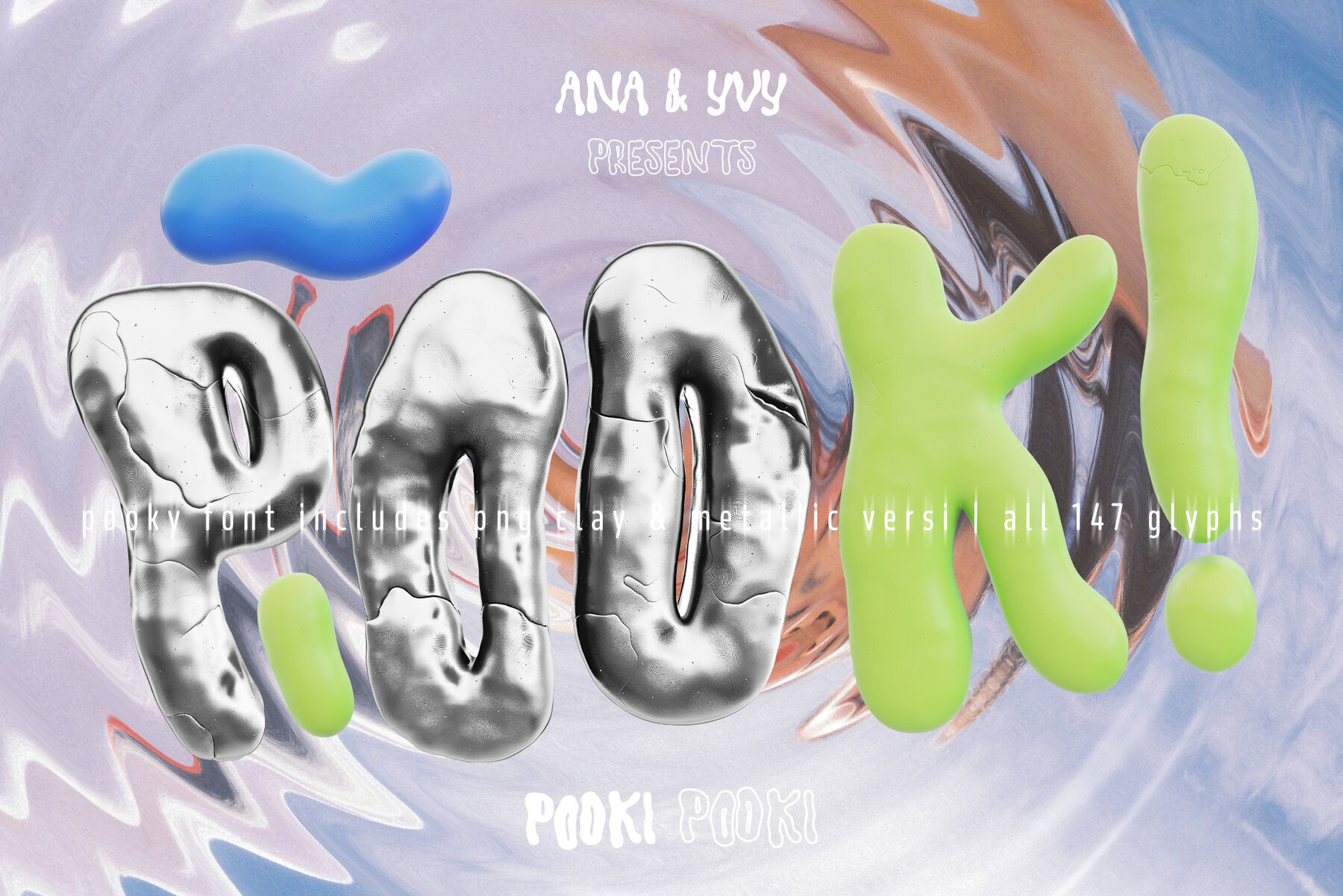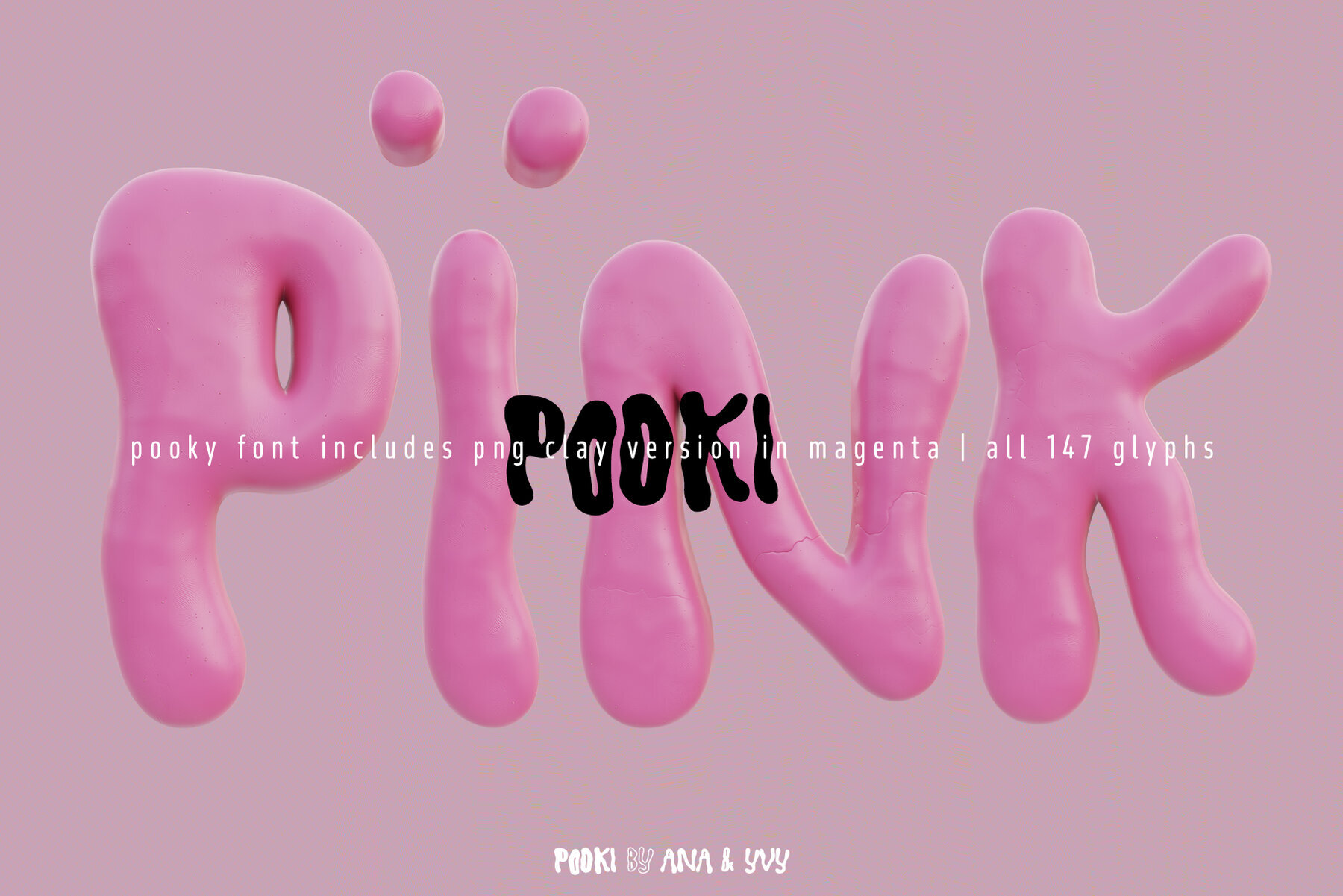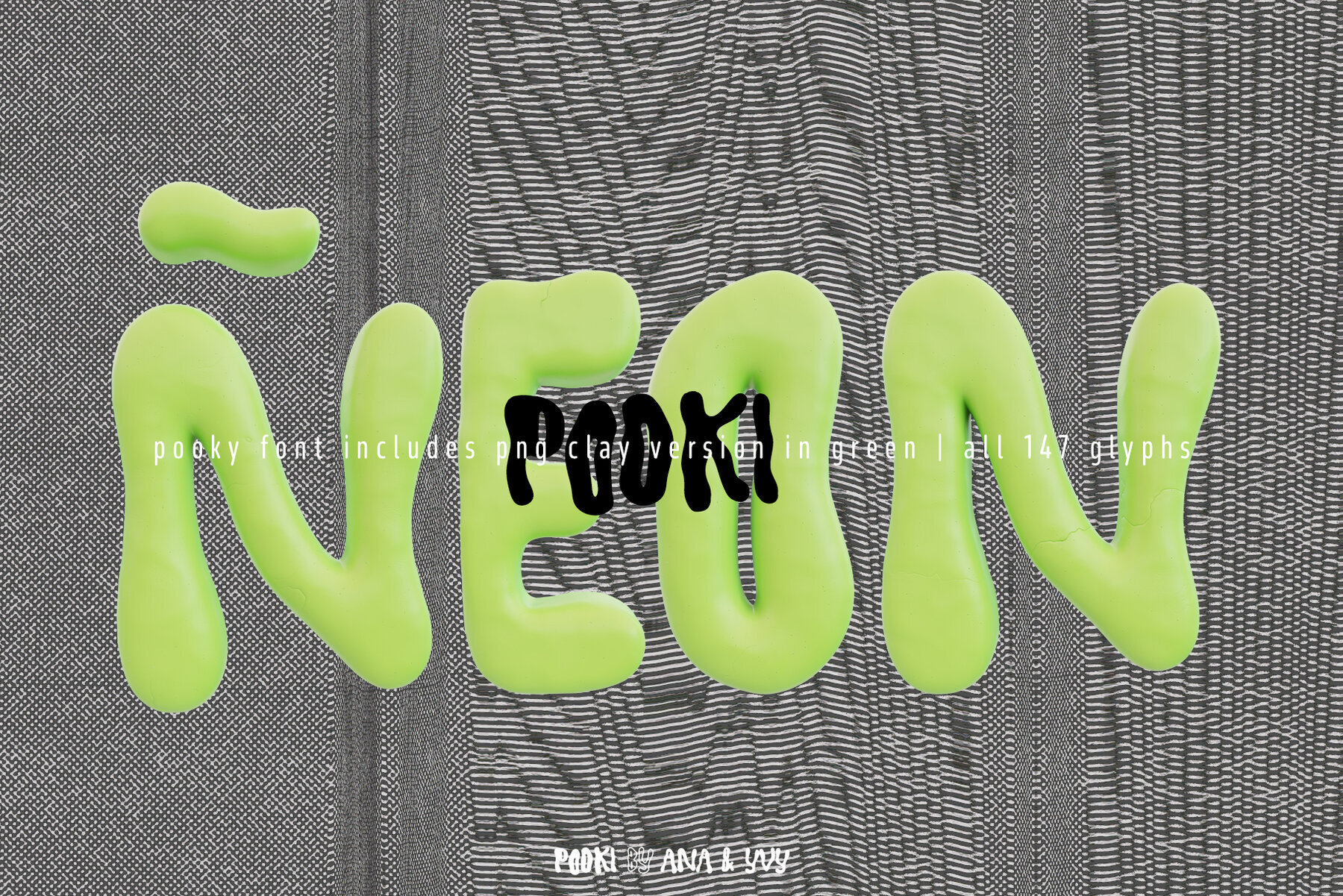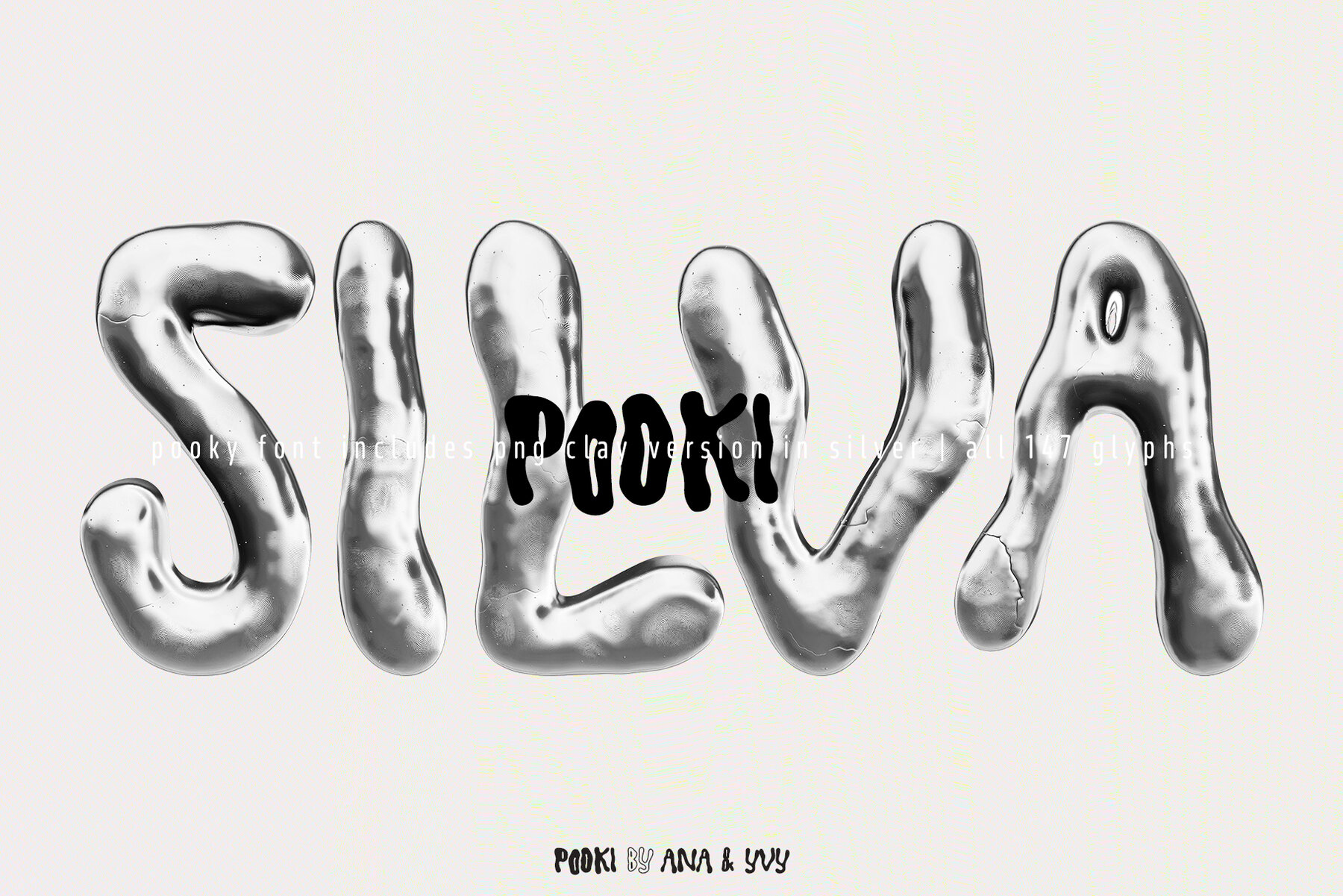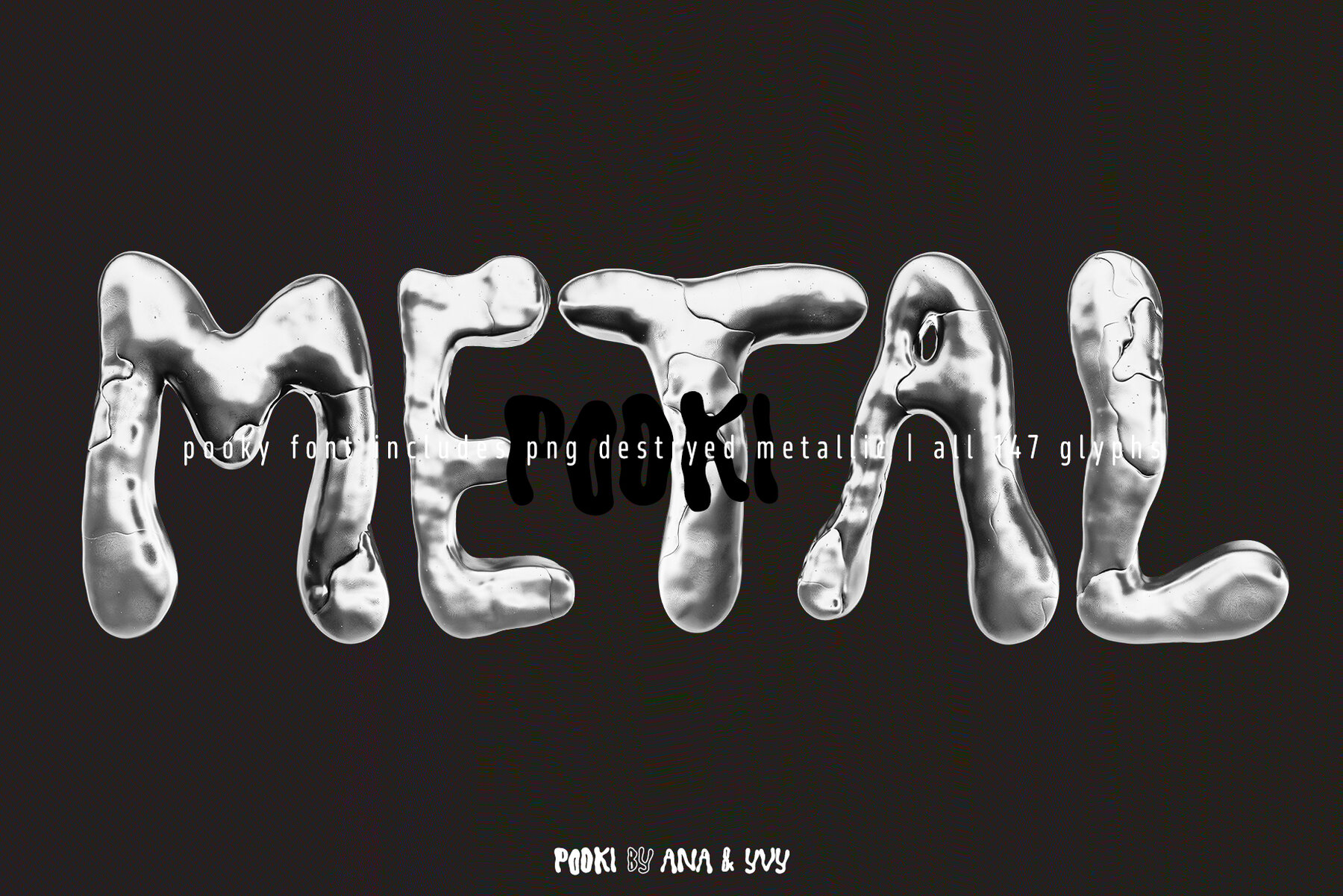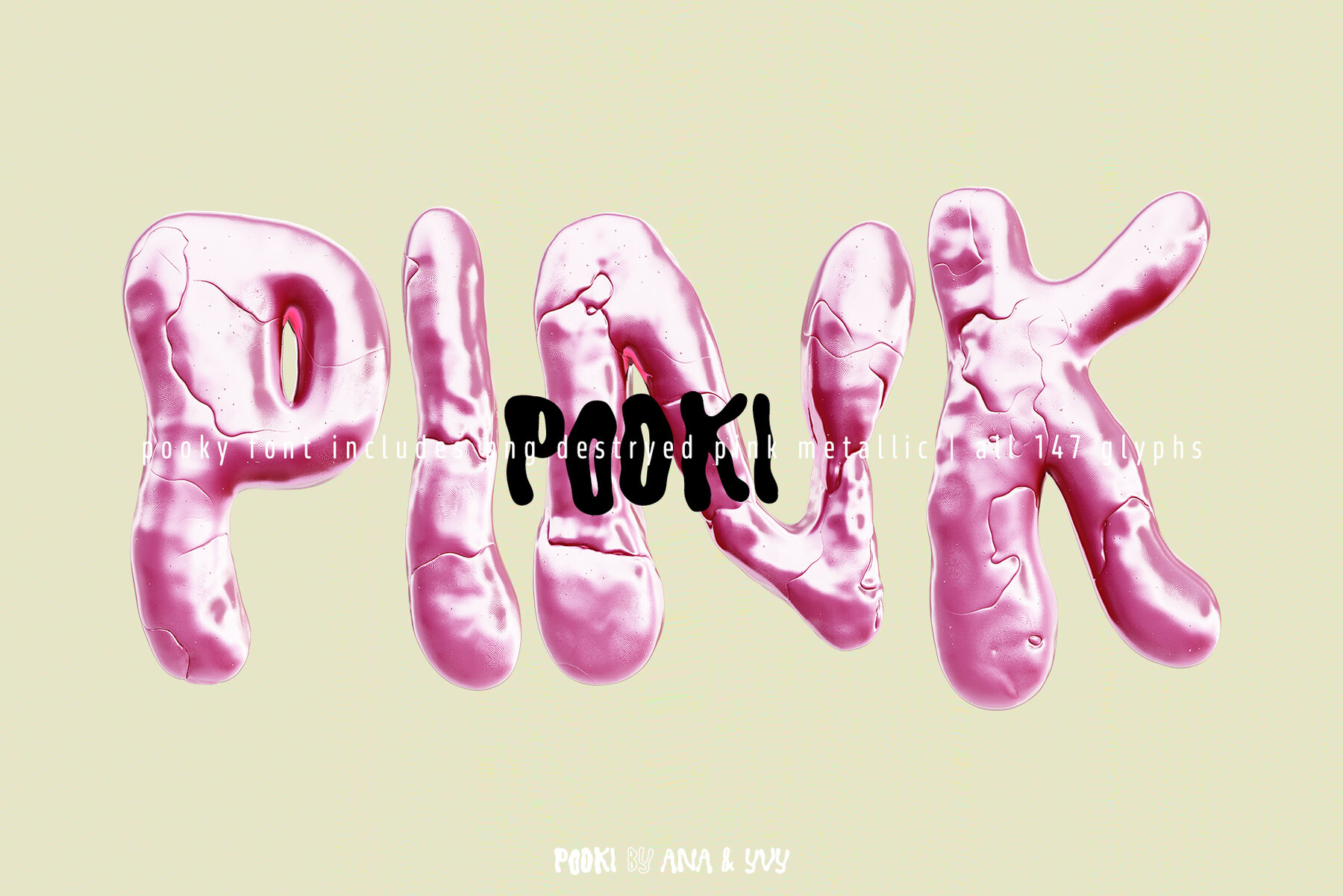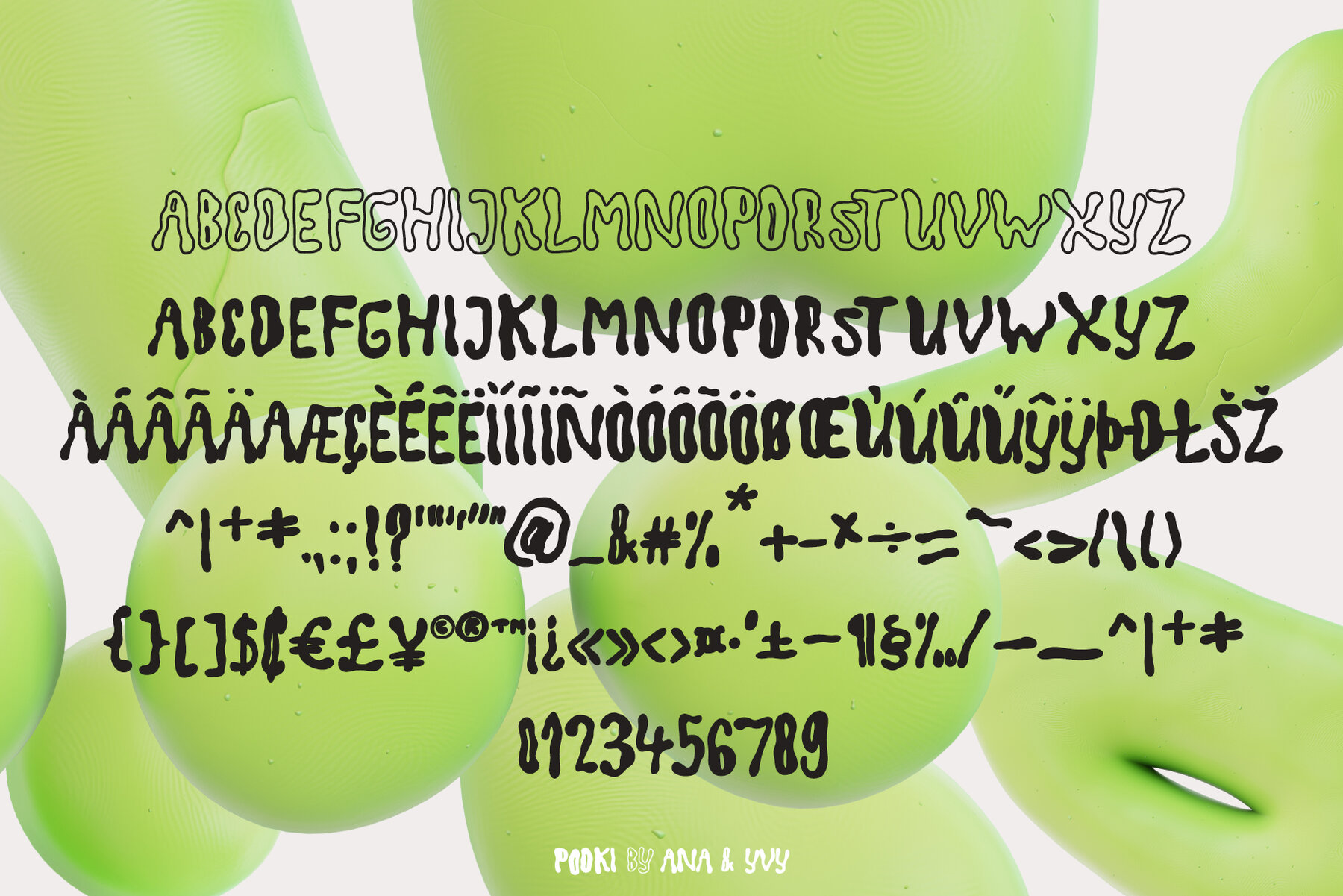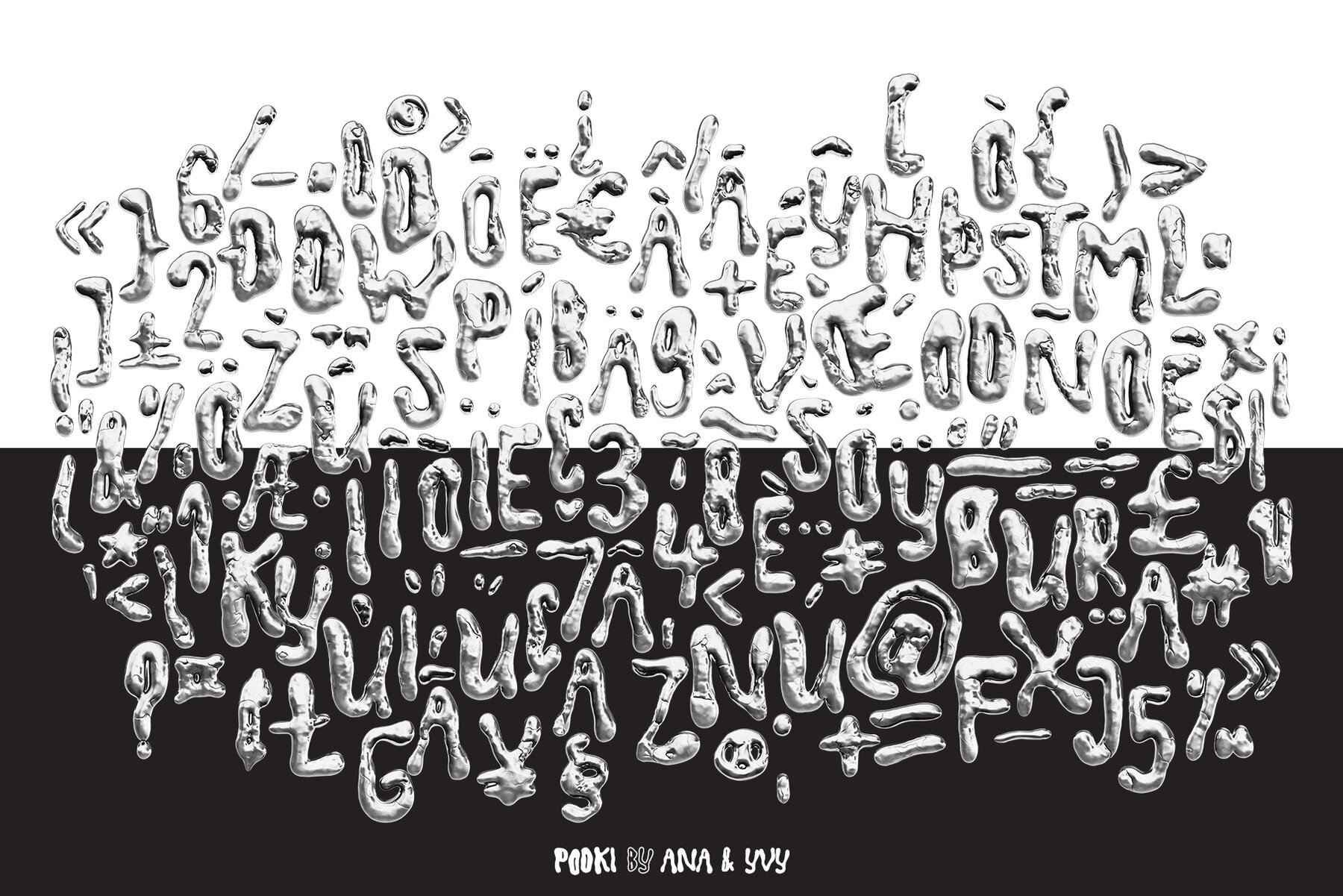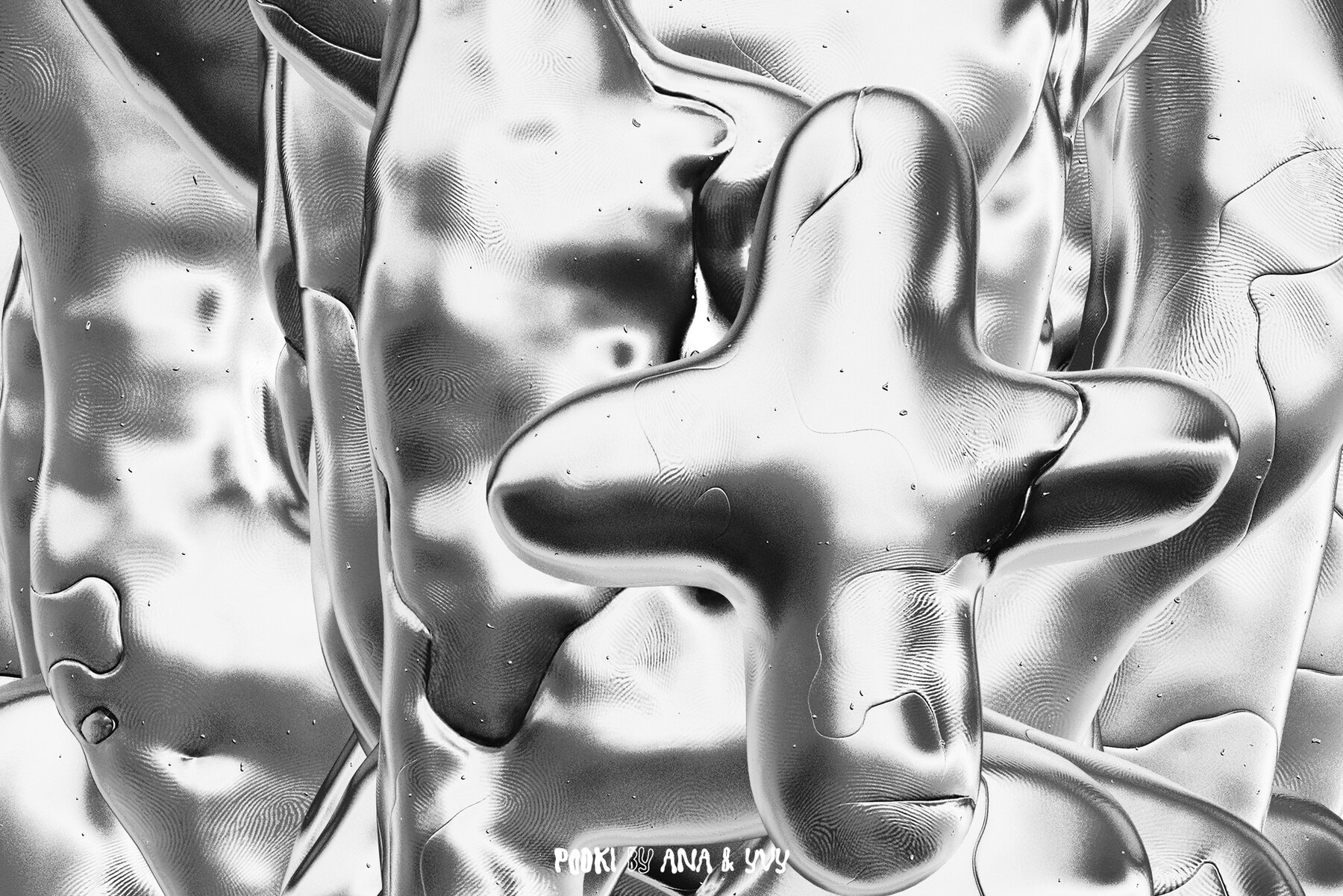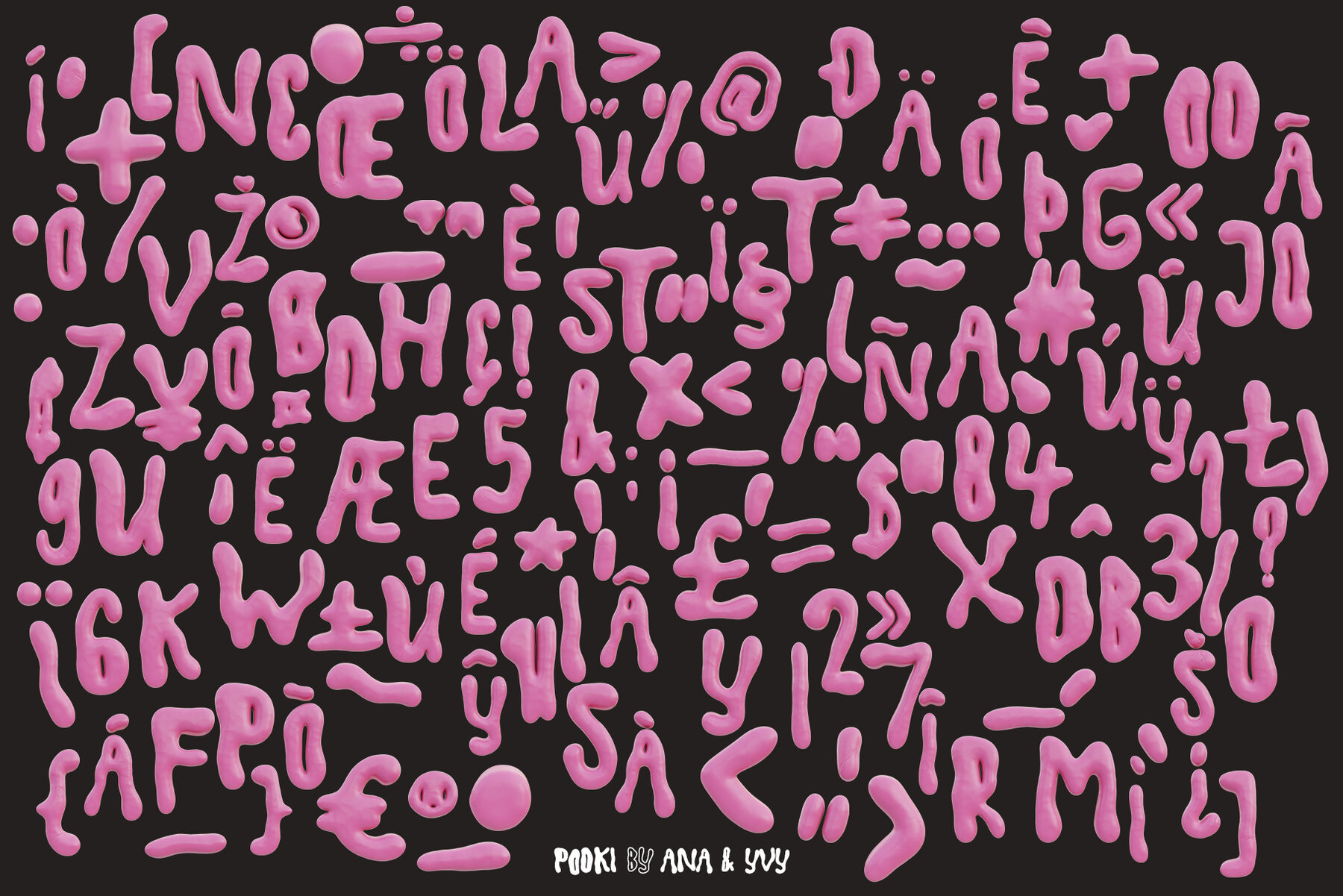
Pooki - Font & Graphics
Pooki is a wobbly bubbly 3D font, that also includes multiple variations of typeface image renderings.
- blue plasticine
- magenta plasticine
- light green plasticine
- metallic
- metallic destroyed
- metallic pink destroyed